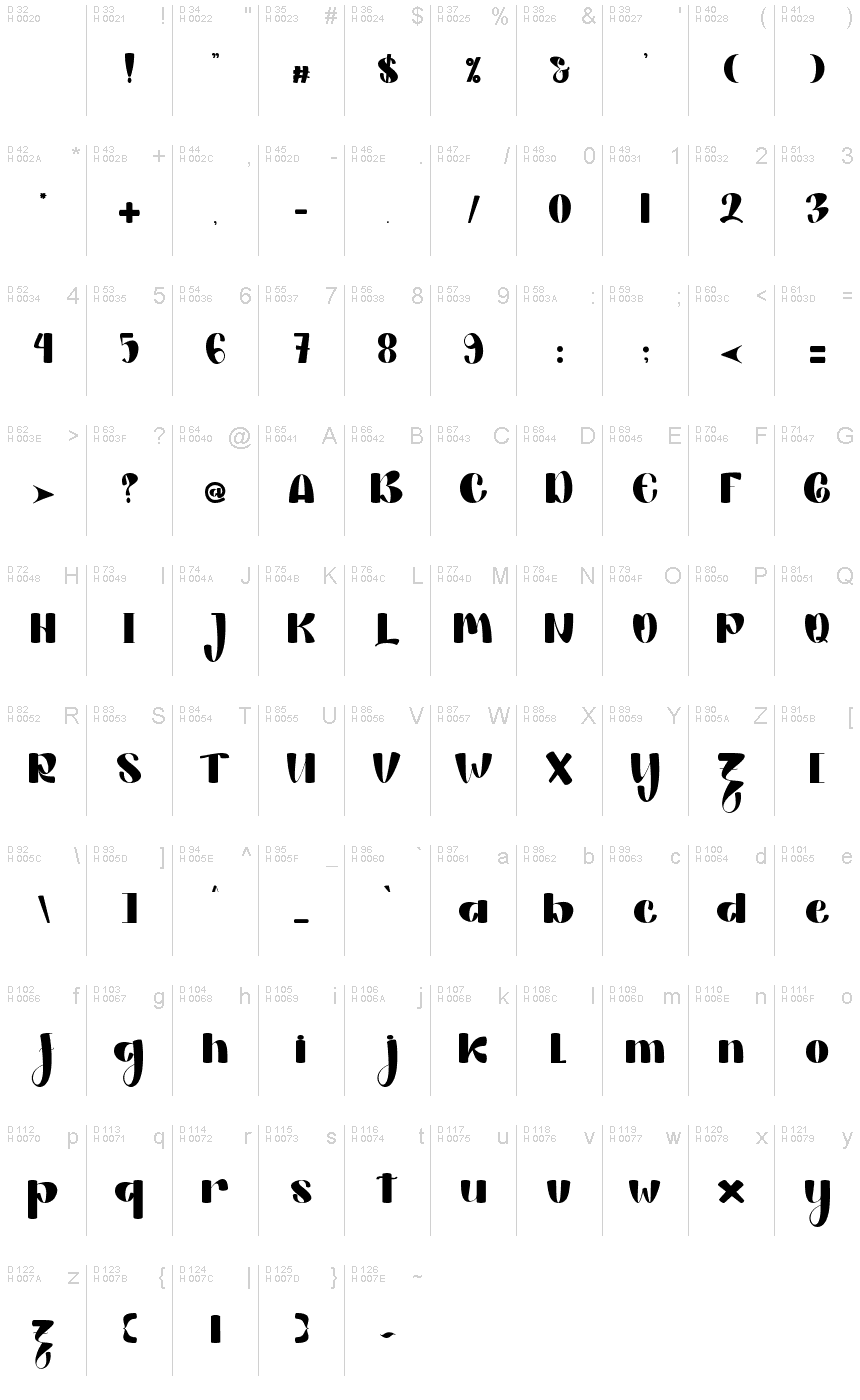
Rellya, designed by Harjuno Kristanto, is a modern display font that exudes sophistication and style.
With its semi-bold weight and semi-expanded width, Rellya is perfect for creating eye-catching headlines and titles. Its clean lines and contemporary aesthetic make it ideal for projects in the fashion industry, such as magazine covers or brand logos. Additionally, Rellya's versatility lends itself well to advertising campaigns or luxury product packaging.
Whether you're designing for print or digital media, this font will elevate your project with its unique blend of modernity and elegance.